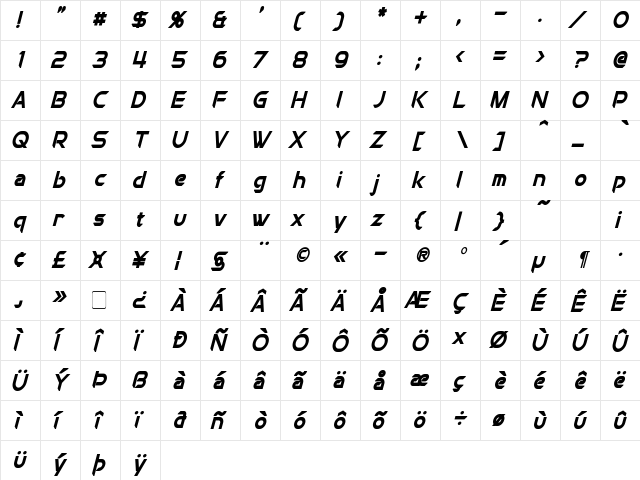
Chromia Condensed Bold Italic Font Preview
Design Context for Chromia Condensed Typeface
Chromia Condensed takes a measured approach to typography — its balanced proportions and neutral character make it a reliable workhorse for both digital and print work. Its italic angle brings a sense of urgency and motion to the letterforms. Its bold stroke weight gives it real presence on the page. The condensed width makes it efficient for tight spaces without sacrificing legibility.
Pro Tip: Try Chromia Condensed for annotation and caption copy alongside an upright companion — the contrast in angle creates a dynamic but ordered typographic system.